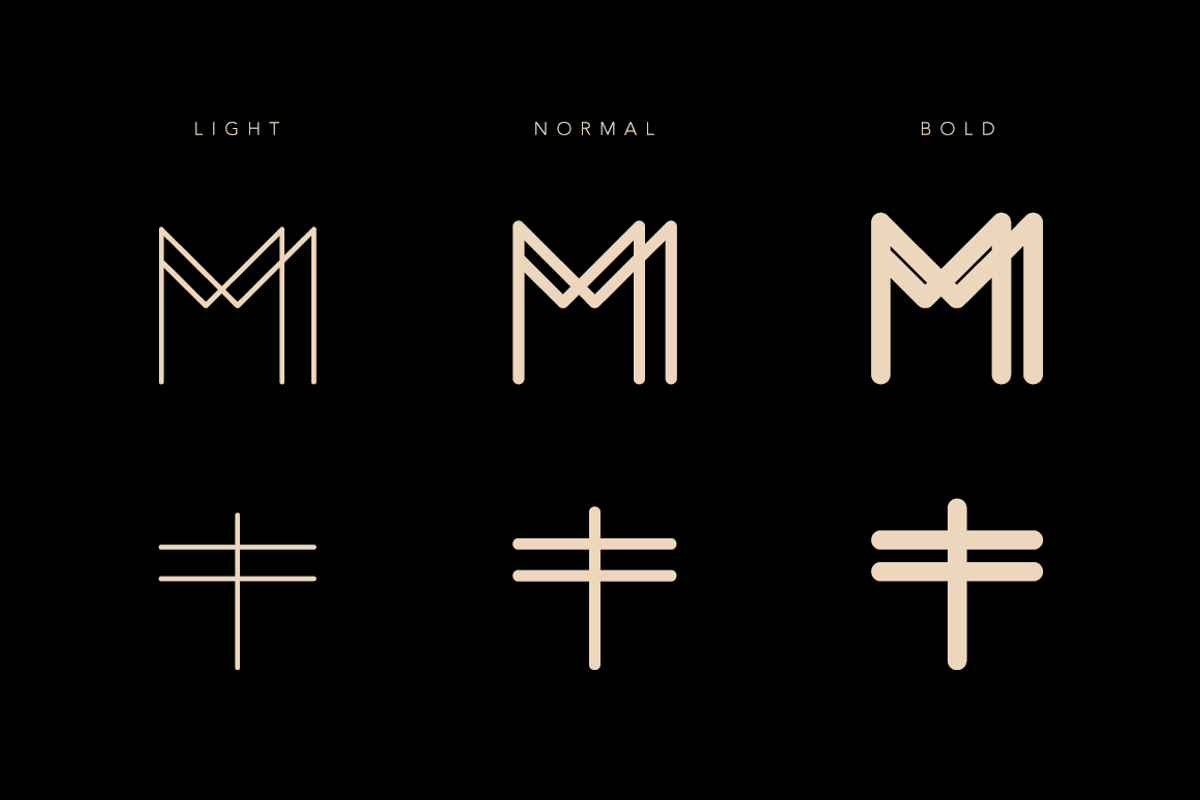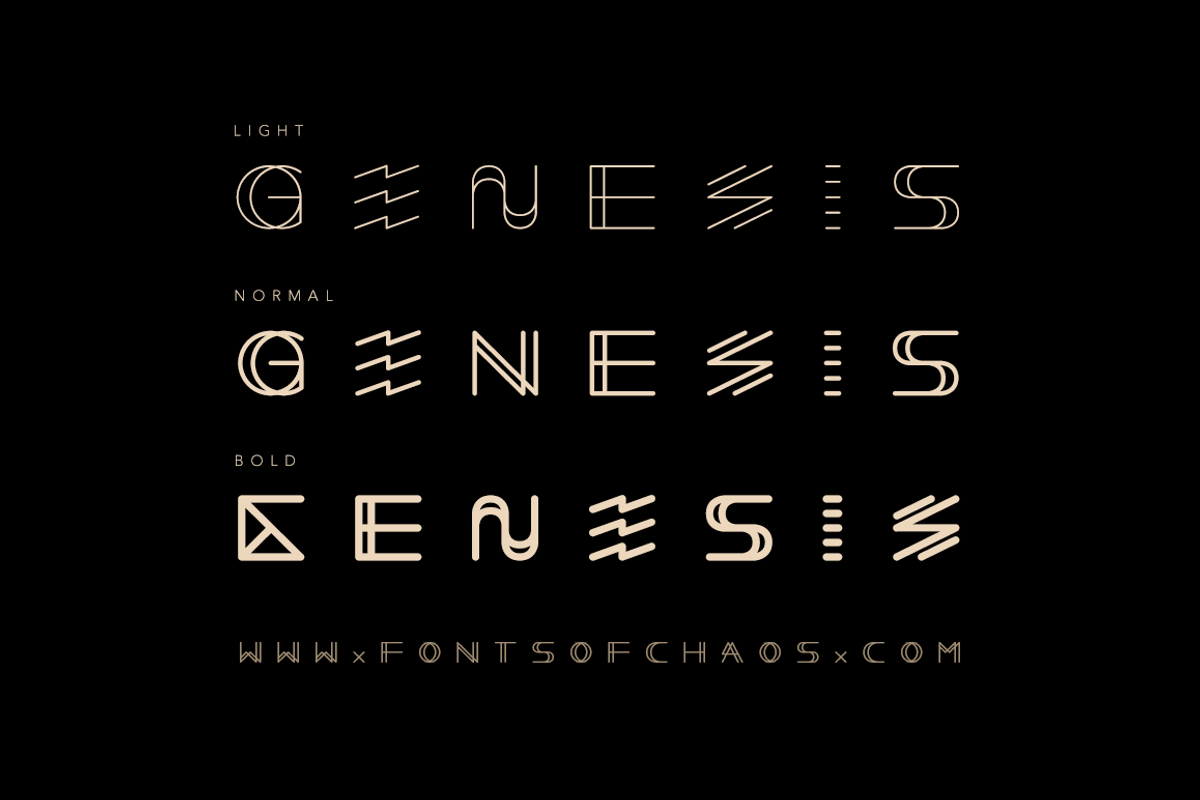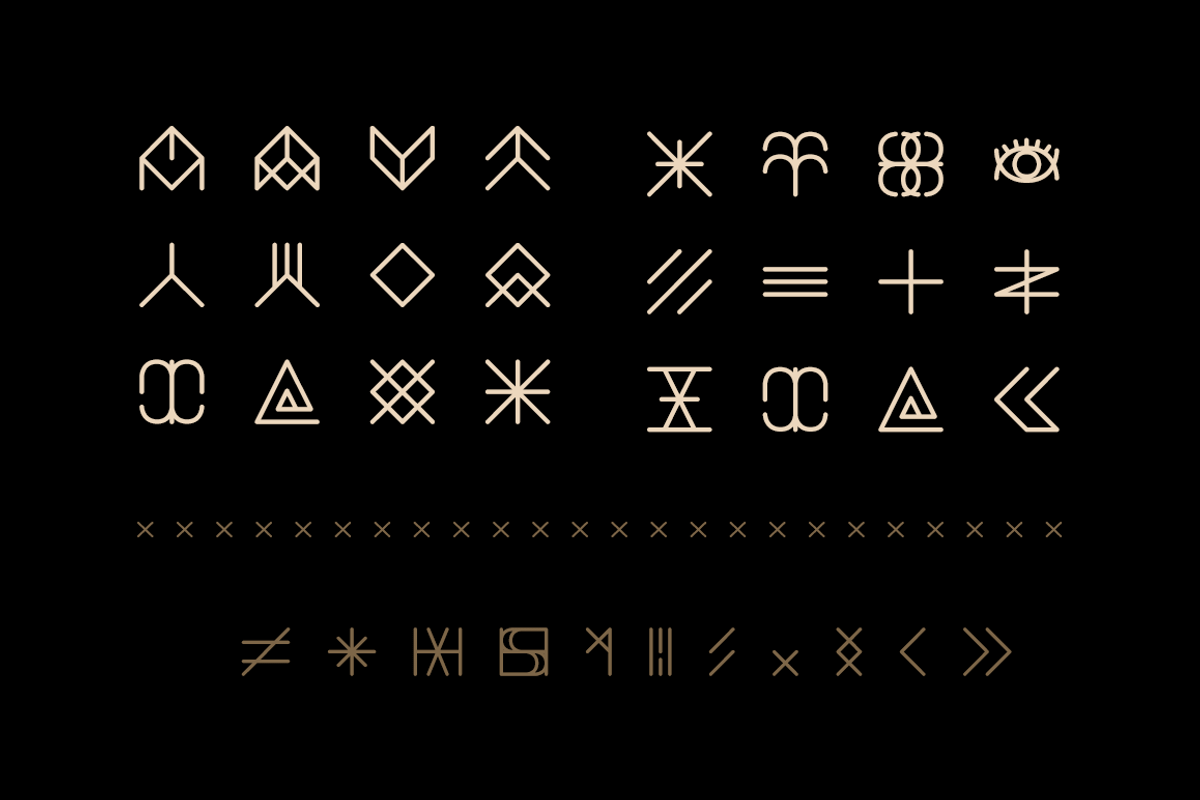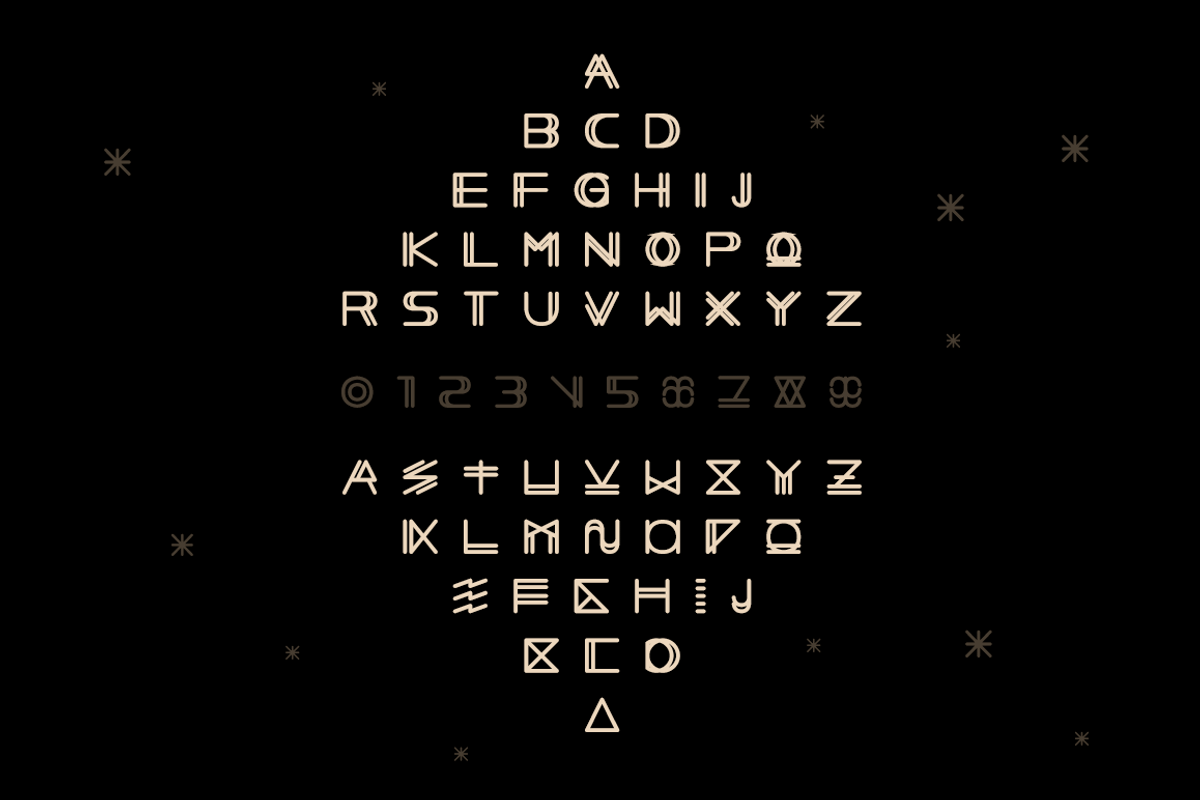
Enfant du Kult - font
Enfant du Kult - font by David is Creative is a font selected for branding, posters, packaging, typography.
Enfant du Kult - font by David is Creative fits naturally into Branding, posters, packaging, typography.